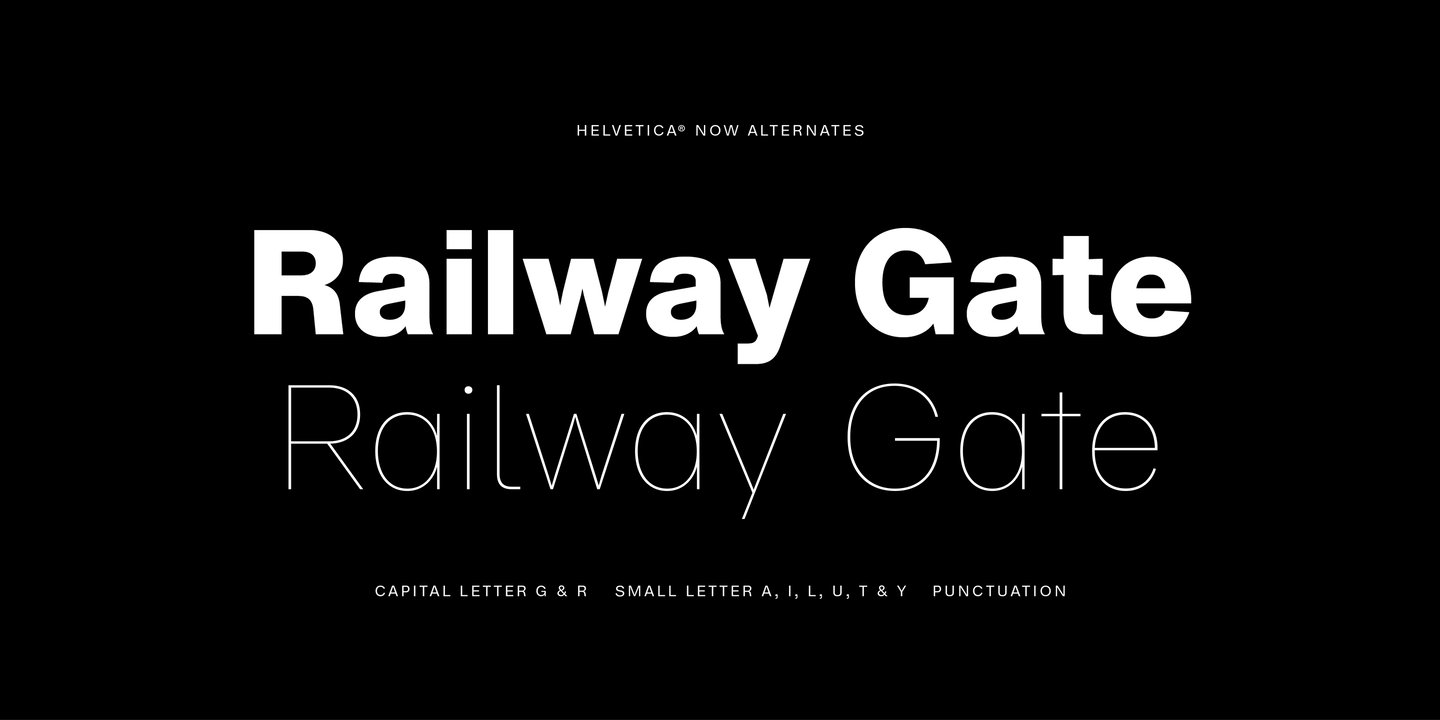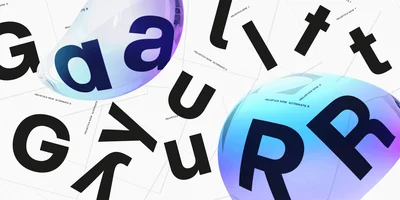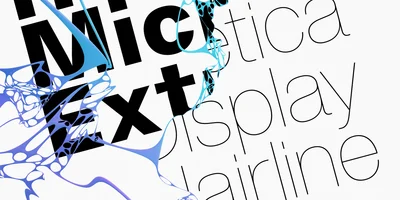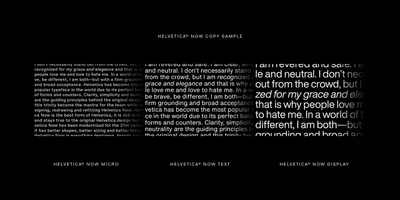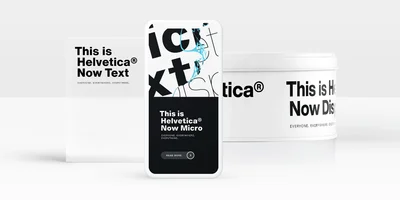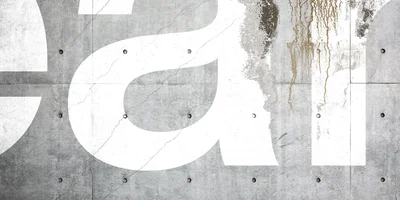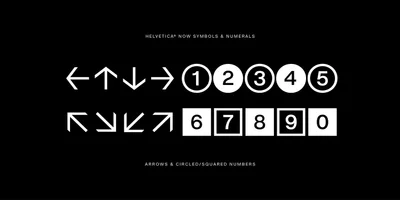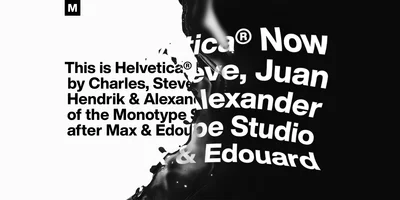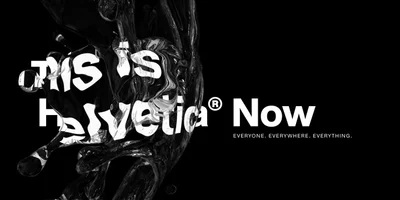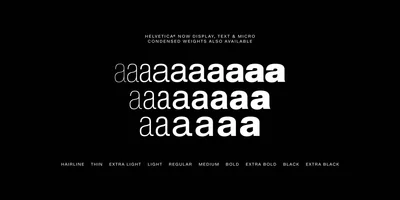
Helvetica Display vs Nimbus Sans
Nimbus Sans is a popular open-source alternative to Helvetica Display's neo-grotesque design. At 80% similarity, Nimbus Sans delivers a neutral, clean aesthetic. Compare which works better for headlines and branding projects.
Consider: Helvetica Display
- Shares Helvetica Display's minimal character
- Supports 4 scripts including cyrillic and greek
- Delivers a neutral, clean, professional aesthetic
- Popular in enterprise-corporate and government-public-sector design
Recommended: Nimbus Sans
- Designed specifically for headlines and branding